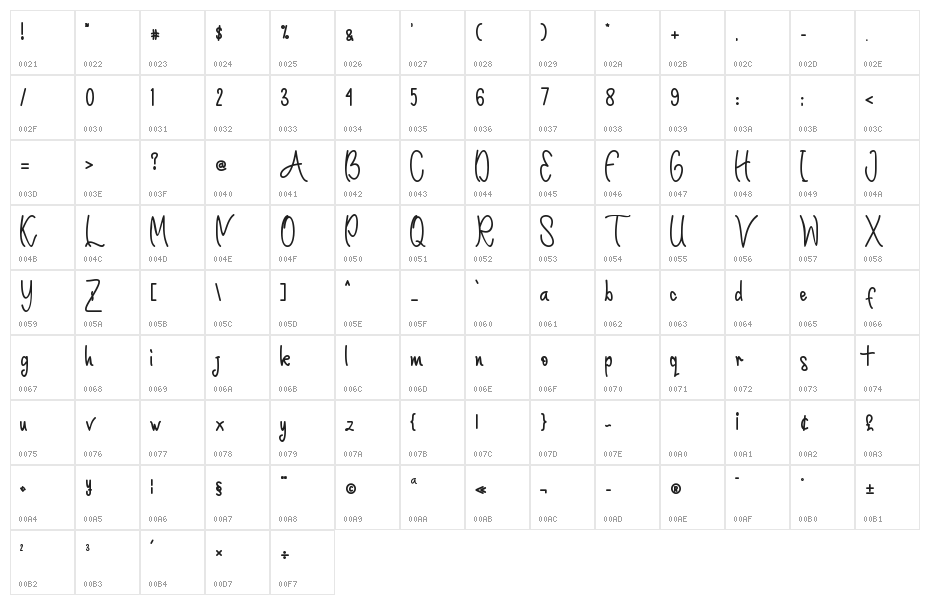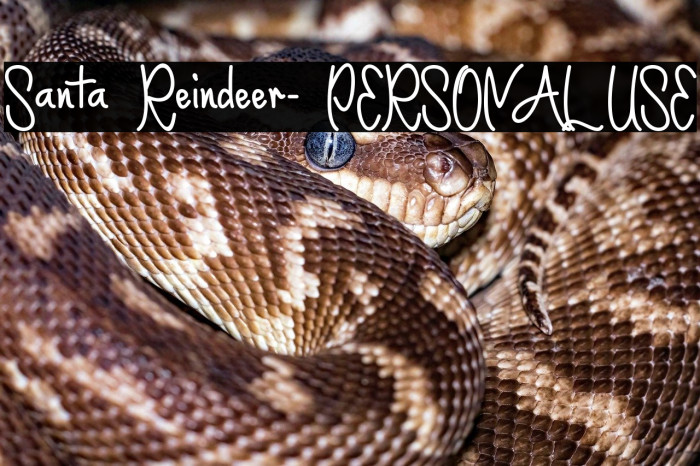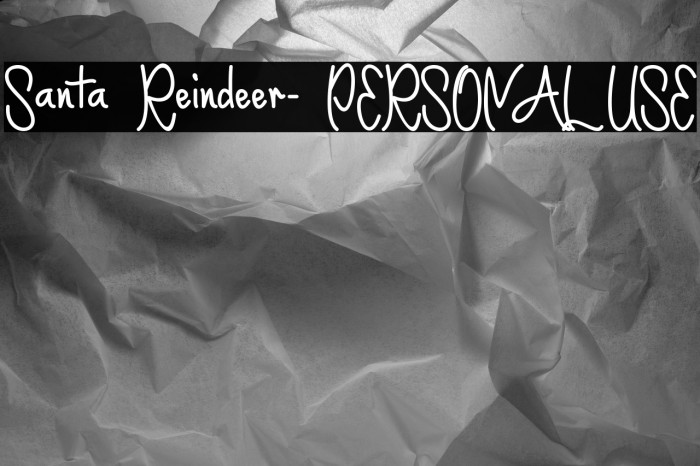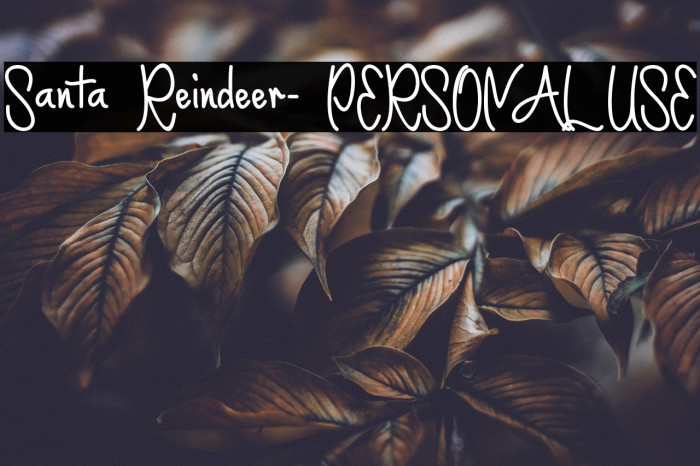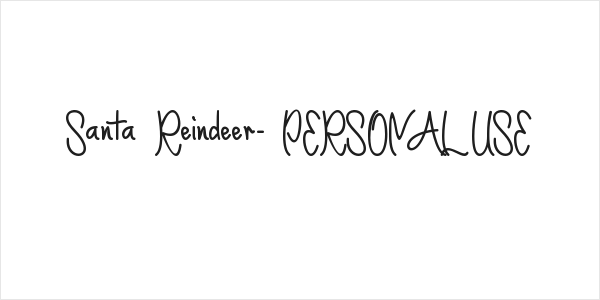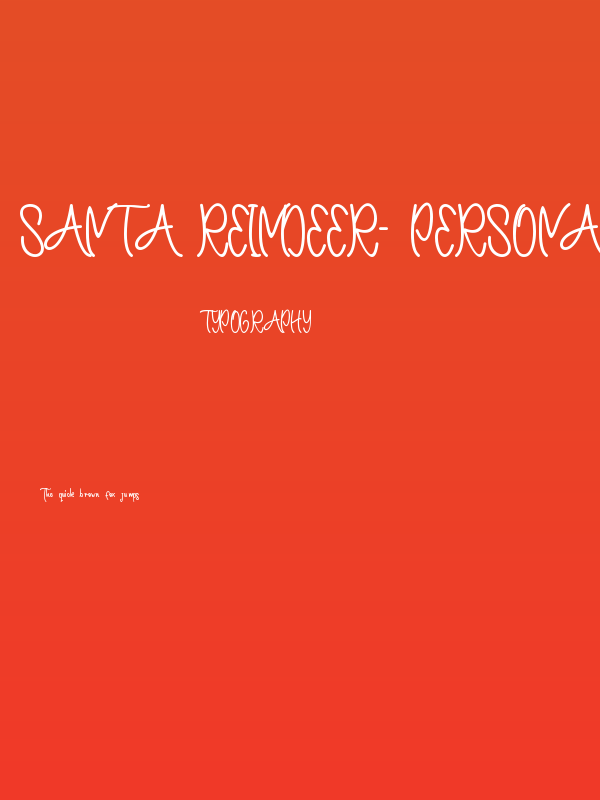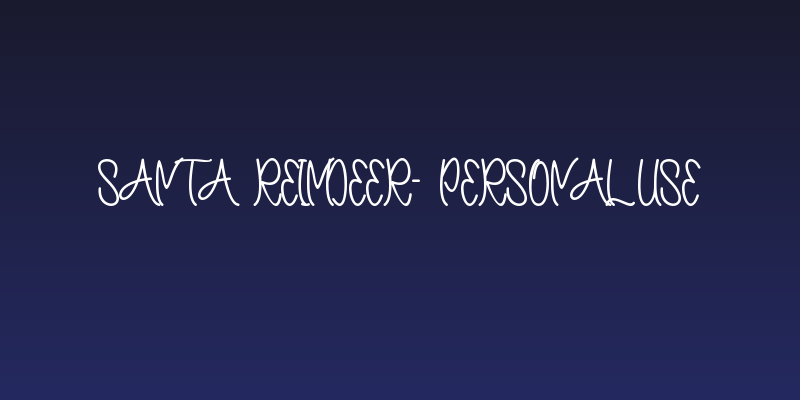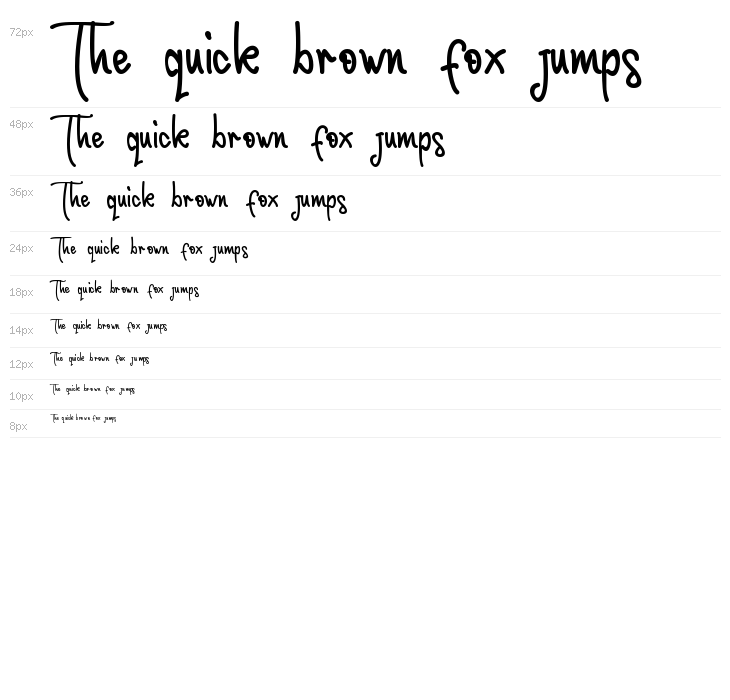
Santa Reindeer- PERSONAL USE Font
Santa Reindeer- PERSONAL USE Description
A playful, handwritten script with tall, narrow uppercase letters and rounded, casual lowercase forms. The strokes are consistent in thickness, giving a friendly and whimsical appearance. The characters have a loose, informal style with slightly exaggerated ascenders and descenders.
| Overall Style | Decorative, Playful, Whimsical |
| Use Case | Headlines, Logos, Greeting cards, Invitations |
| Proposed Projects | Holiday cards, children's book covers, festive invitations, playful branding, greeting cards. |